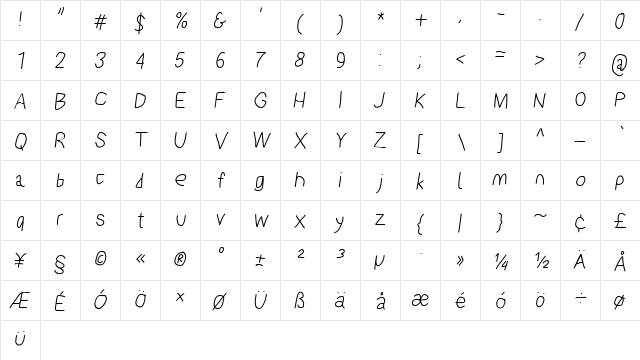
PolanStronk Ita
Design Context for PolanStronk Typeface
PolanStronk is a composed and adaptable typeface that performs quietly and consistently across a wide range of design contexts. The slanted form adds forward momentum and visual energy.
Pro Tip: Try PolanStronk for annotation and caption copy alongside an upright companion — the contrast in angle creates a dynamic but ordered typographic system.